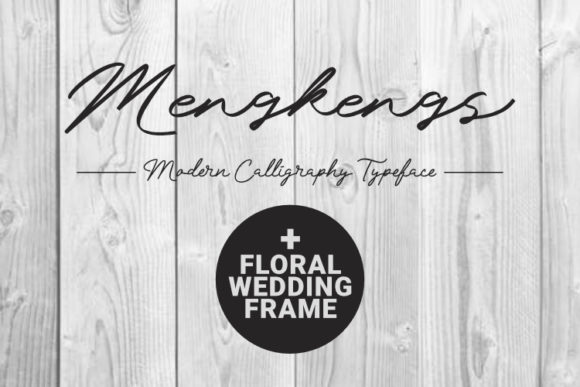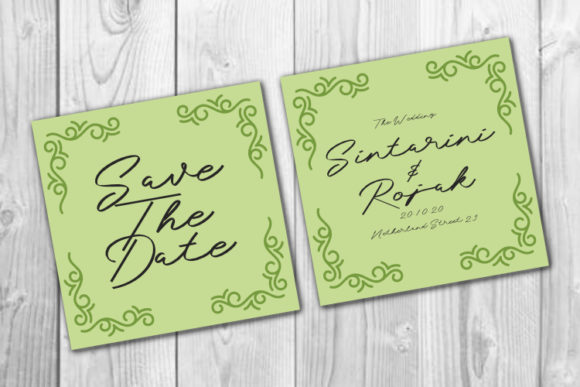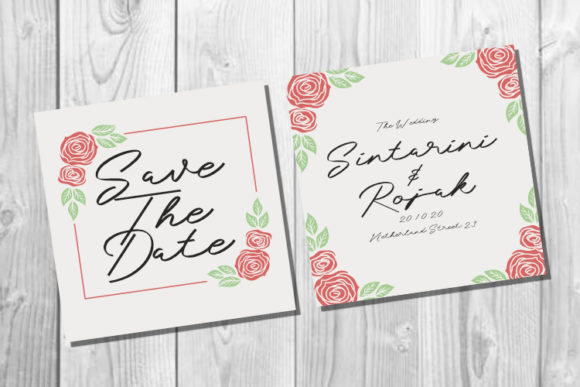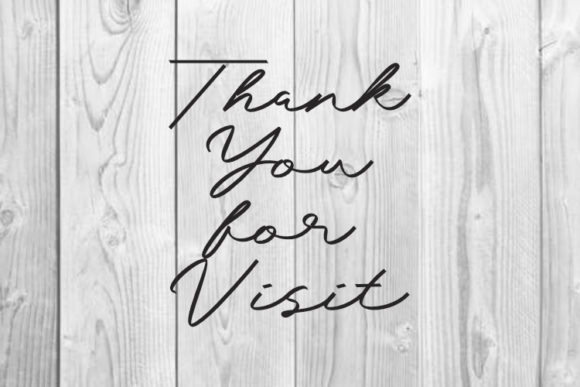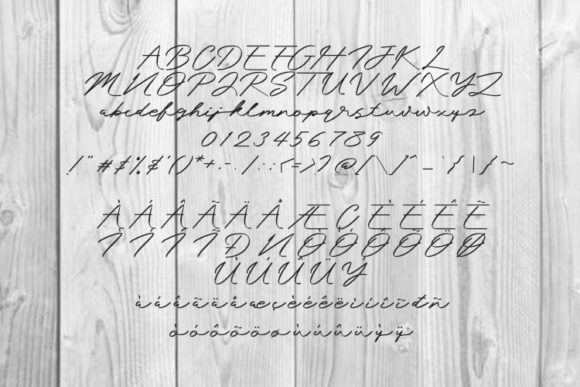
Mengkengs Font
About Mengkengs Font
The Mengkengs is a modern handwritten font. It has a stylish handwritten touch which is perfect for adding a natural and classy look to your designs.
It’s perfect for many different project such as logos & branding, invitation, stationery, wedding designs, social media designs, and much more!